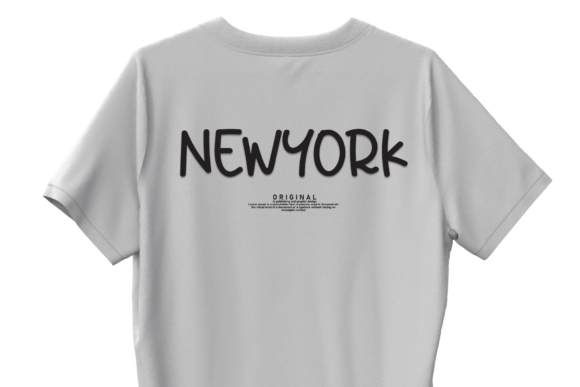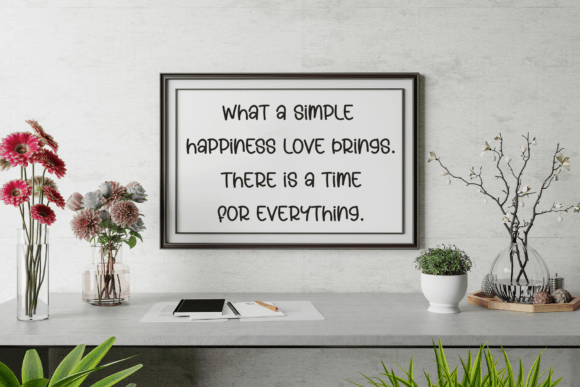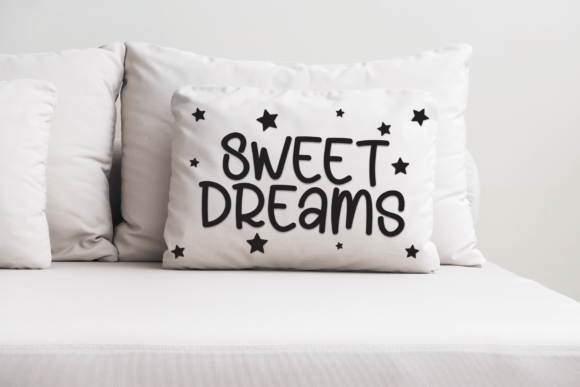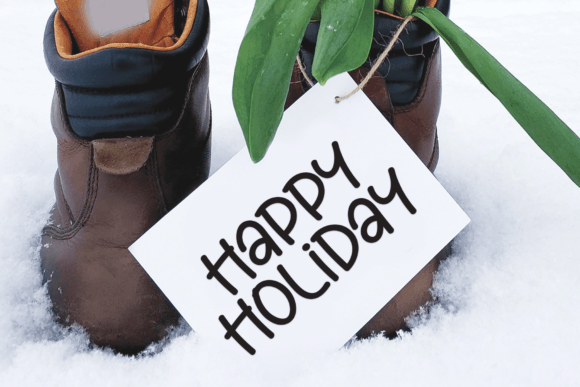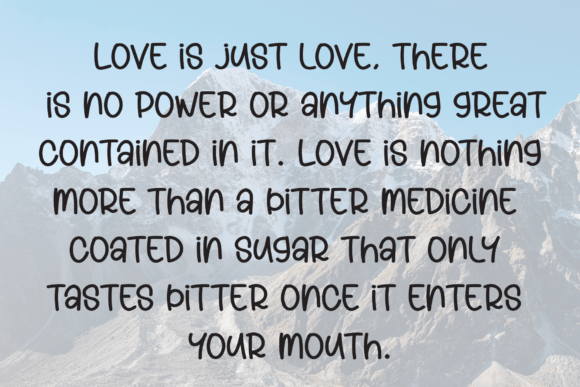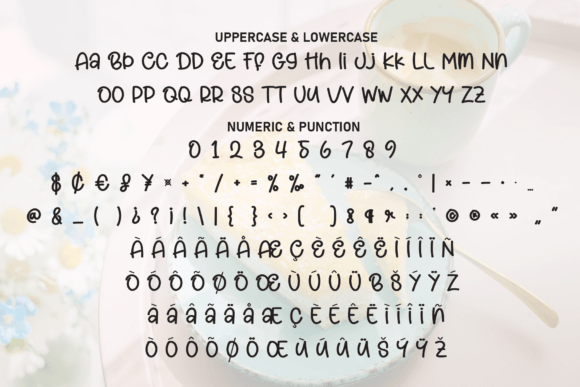
The Cheesecake Font: A Whimsical Addition to Your Design Toolbox
Have you ever been in the middle of a design project, and suddenly, you’re stuck on finding the perfect font? I recall a recent experience where I was working on a DIY craft project, and I needed a font that would add a touch of whimsy to my design. That’s when I stumbled upon the Cheesecake font, a fun handwritten font that has become a staple in my design toolbox.
A Personal Encounter with Cheesecake
I was working on a custom wedding invitation for a friend, and I wanted to add a personal touch to the design. I spent hours browsing through font libraries, but nothing seemed to fit the bill. That’s when I discovered Cheesecake, and it instantly clicked. The font’s playful and carefree vibe perfectly captured the essence of the wedding celebration.
An Honest Review of Cheesecake
Here’s what I love about Cheesecake:
- ✨ Unique and quirky design that adds a touch of personality to any project
- 💫 Supports OpenType features, glyphs, and stylistic alternates, giving you plenty of creative options
- 🎨 Perfect for a variety of design projects, from Instagram graphics to calligraphy scripts
While Cheesecake is an excellent font, there are a few minor quirks to be aware of:
- 🤔 Some characters may not work well in all design software or platforms
- ⚠️ Limited language support, so it’s best to use it for English or similar languages
The Story Behind Cheesecake
Cheesecake was designed with the intention of creating a font that’s both fun and functional. The designer aimed to craft a font that would add a touch of whimsy to any design project, while still being highly legible. The result is a font that’s perfect for creative hobbyists, designers, and crafters alike.
Q: What type of projects is Cheesecake best suited for?
A: Cheesecake is perfect for a variety of design projects, including Instagram graphics, calligraphy scripts, DIY projects, and more.
Q: Does Cheesecake support OpenType features?
A: Yes, Cheesecake supports OpenType features, glyphs, and stylistic alternates, giving you plenty of creative options.